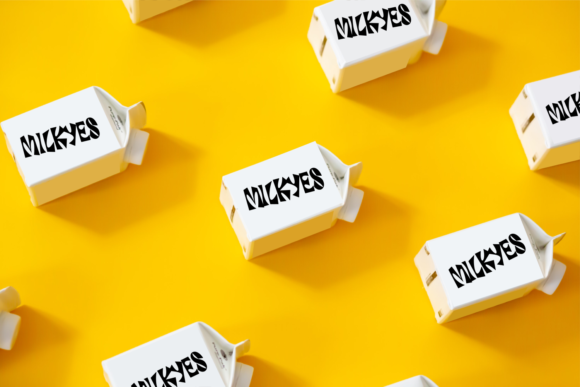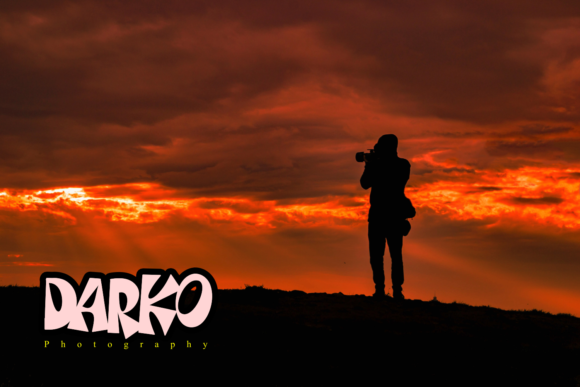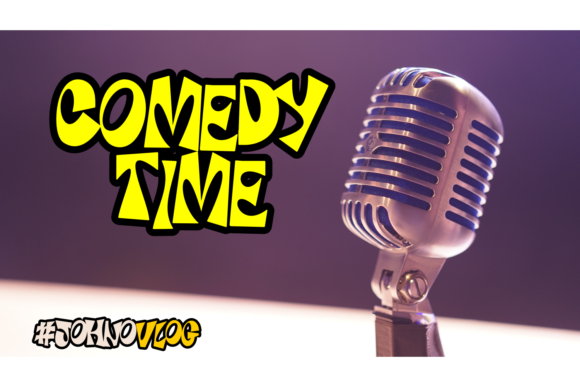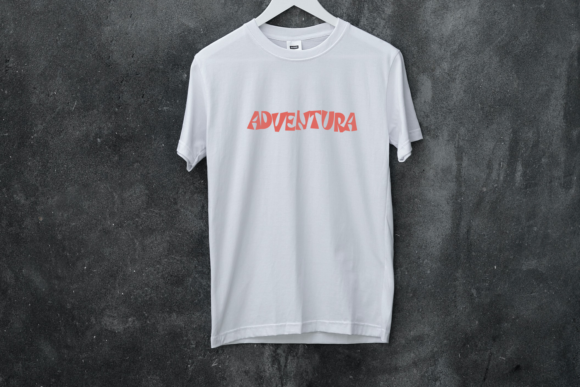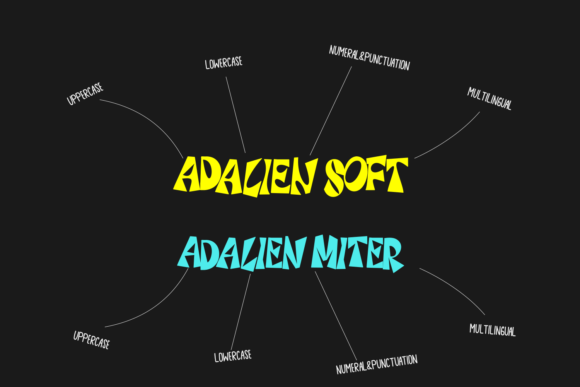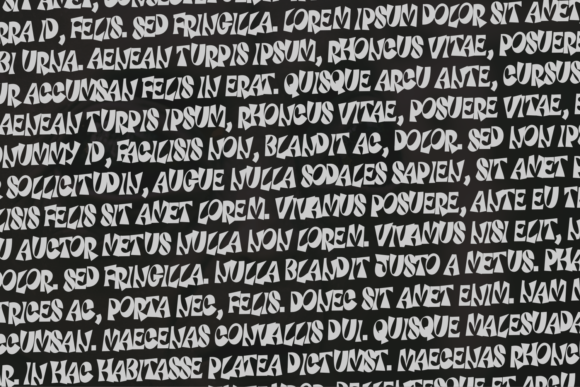
The Adalien Font: A Cool, Wavy, and Whimsical Design Essential
I’ll never forget the time I was working on a project for a client’s t-shirt line, and I just couldn’t seem to find the right font. The design needed something fun, playful, and eye-catching, but everything I tried seemed either too bland or too over-the-top. That’s when I stumbled upon the Adalien font, and let me tell you, it was love at first sight! 😍
Adalien is a cool, wavy, and whimsical designed display font that’s perfect for designs such as t-shirts, sportswear, logos, advertisements, clothing, and more. In this article, I’ll share my honest review of the Adalien font, provide a practical guide on how to use it, and explore similar fonts and alternatives.
- Unique and eye-catching design that’s perfect for making a statement
- Highly versatile and can be used for a wide range of design projects
- Easy to read and understand, even at smaller font sizes
- Well-suited for both digital and print designs
- Regularly updated with new features and improvements ✅
- May not be the best choice for body text or longer paragraphs of text ⚠️
- Some users may find the wavy design a bit too playful or distracting
- Limited availability of certain OpenType features and glyphs
One of the best things about Adalien is its support for OpenType features and glyphs. These features allow you to customize the font to fit your design needs and add an extra layer of creativity to your projects. Some of the OpenType features and glyphs available in Adalien include:
- Stylistic alternates: These allow you to switch between different font styles, such as bold, italic, and oblique.
- Ligatures: These are special character combinations that can be used to create unique and eye-catching text effects.
- Swashes: These are decorative flourishes that can be added to letters and words to give them a more elegant or playful feel.
If you love Adalien, you may also want to check out these similar fonts and alternatives:
- Pacifico: This font has a similar wavy and whimsical design to Adalien, but with a more elegant and sophisticated feel.
- Great Vibes: This font has a similar playful and eye-catching design to Adalien, but with a more modern and edgy feel.
- Lobster: This font has a similar elegant and refined design to Adalien, but with a more classic and timeless feel.
- Rock Salt: This font has a similar playful and whimsical design to Adalien, but with a more rugged and distressed feel.
Adalien was designed by a team of creative designers who wanted to create a font that was both fun and functional. The font was inspired by the wavy and whimsical designs of the 1960s and 1970s, with a modern twist. The designers wanted to create a font that would be perfect for designs that needed a playful and eye-catching touch, such as t-shirts, sportswear, and logos.
Q: What is Adalien font?
A: Adalien is a cool, wavy, and whimsical designed display font that’s perfect for designs such as t-shirts, sportswear, logos, advertisements, clothing, and more.